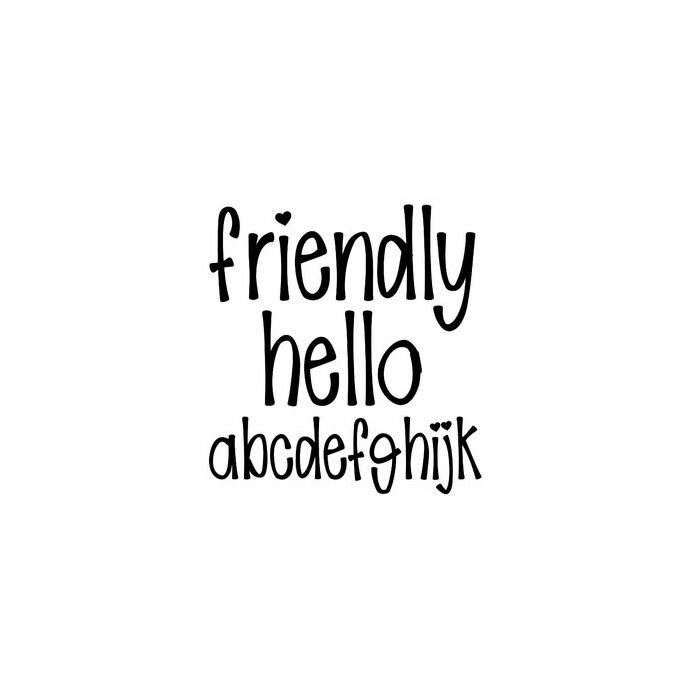
A cute thick marker handwriting font with hearts. Fun for summer crafts, birthday cards, monograms, projects, and personalization. Includes alphabet, numbers and punctuation.